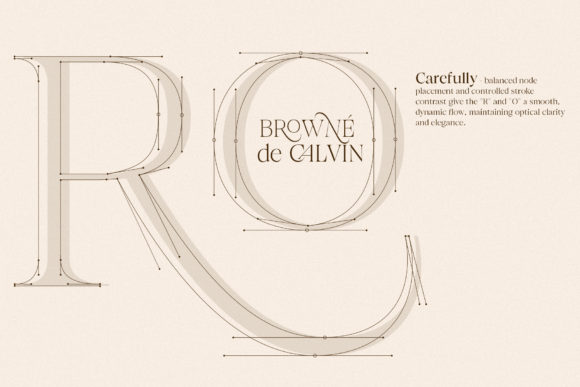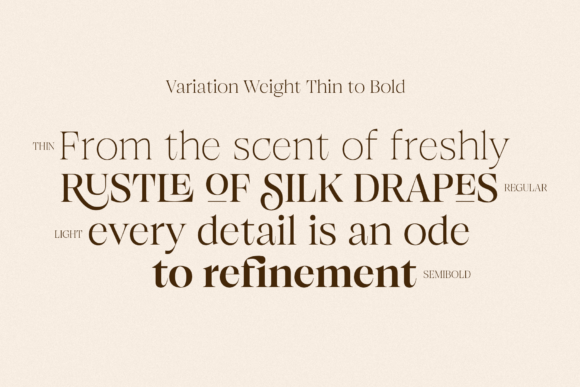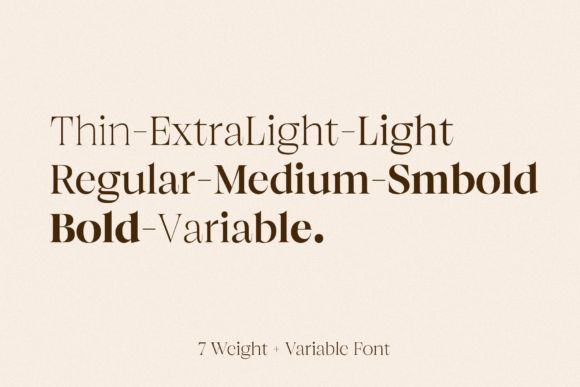
Browne De Calvin Font
Introducing Browne de Calvin, a timeless serif typeface crafted with exquisite elegance and sophisticated precision. Designed to embody the spirit of luxury, Browne de Calvin blends the classic beauty of Roman serif tradition with a contemporary refinement, making it a perfect choice for high-end branding, editorial designs, invitations, and more.